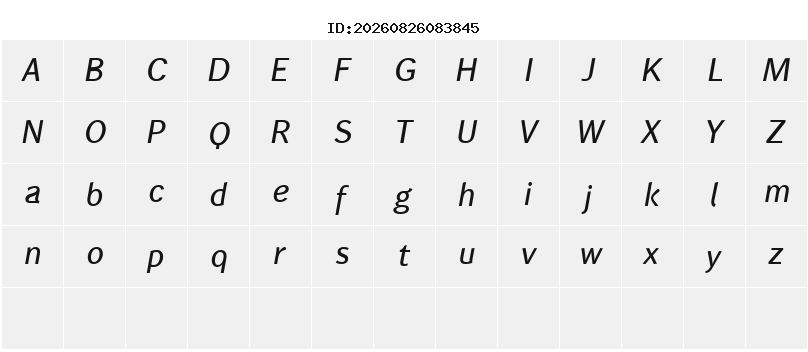
Wendelin Reduced Preview
• Font Name: Wendelin Reduced
• Font Style: 66 Kraeftig Kursiv
• Designer: Ingo Zimmermann
• Manufacturer: Ingo Zimmermann
About Wendelin Reduced.ttf
Wendelin Reduced.ttf is a modern, elegant sans-serif font designed for ultimate readability and visual harmony. Perfect for branding, headlines, web design, and print materials.